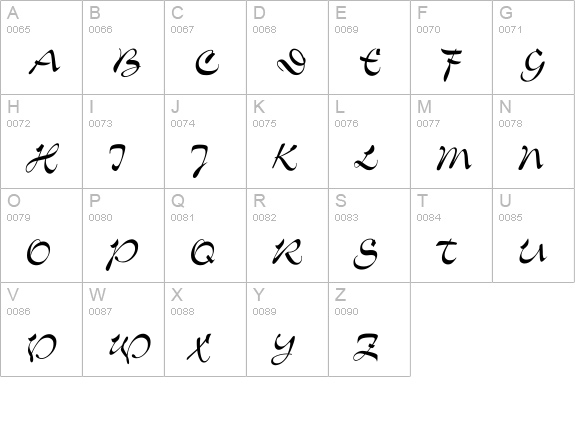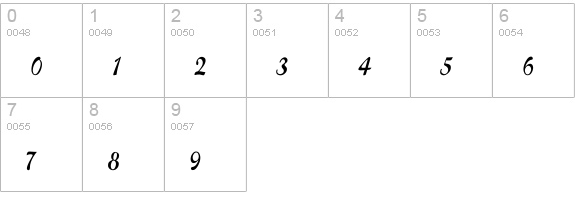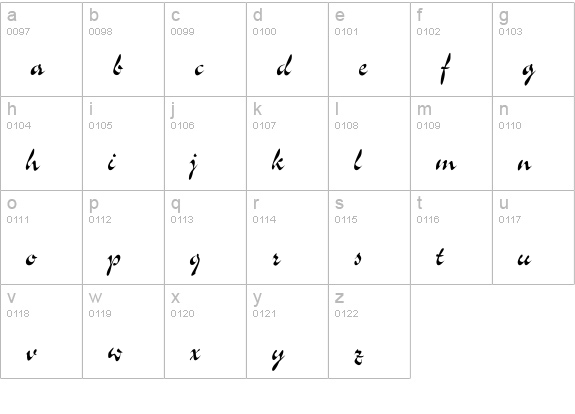
Slogan-Normal Cn Font Details
Slogan-Normal Cn is the standard, neutral variant in the Slogan typeface family \xE2\x80\x94 well suited to general body text, paragraphs, and standard typographic work.
Introducing Slogan-Normal Cn font, a versatile and stylish typeface that effortlessly balances elegance with simplicity. With its clean lines and modern appeal, this font is perfect for a wide range of design projects, from branding and advertising to web design and print materials. Slogan-Normal Cn font embodies a sense of sophistication and professionalism, making it a top choice for businesses and individuals seeking to make a lasting impression. Its smooth curves and well-defined letterforms ensure legibility and readability, even at smaller sizes. But what truly sets Slogan-Normal Cn font apart is its accessibility. It is freely available to download at FontsMarket.com, allowing anyone to enjoy its beauty and versatility without breaking the bank. Whether you're a professional designer looking for a fresh addition to your font library or a student embarking on a creative project, Slogan-Normal Cn font is your go-to choice. With its extensive character set, including multilingual support, Slogan-Normal Cn font caters to a global audience and enables you to communicate your message effectively across different languages and cultures. Its flexibility and adaptability make it suitable for a wide array of design applications, ensuring your work stands out from the crowd. So why wait? Elevate your designs and captivate your audience with Slogan-Normal Cn font, freely available to download at FontsMarket.com. Experience the seamless blend of style and functionality that this font offers, and let your creativity soar to new heights. Embrace the power of fonts and make a statement with Slogan-Normal Cn font today.